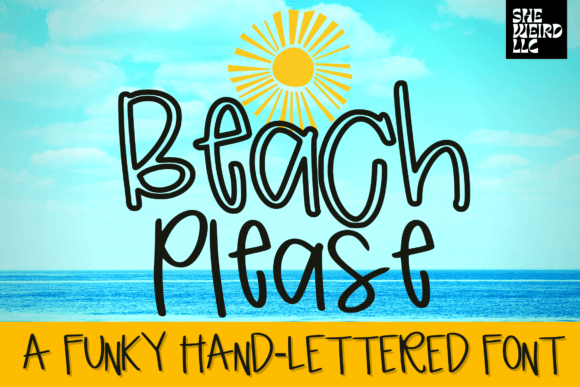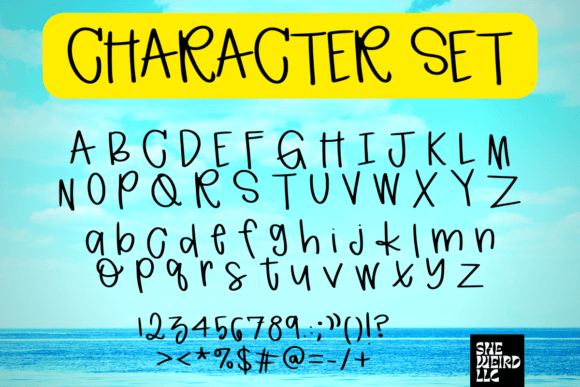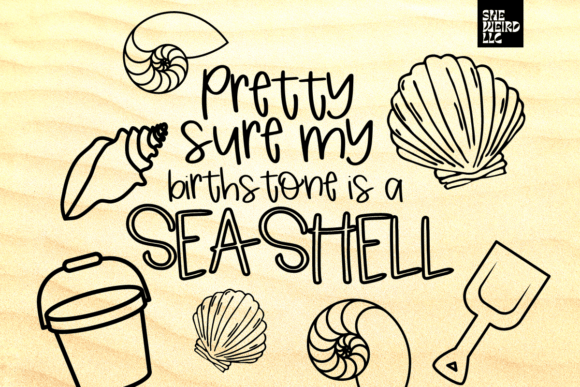
Beach Please Font
About Beach Please Font
“Beach Please” is a delightful and approachable handwritten font that radiates quirkiness and friendliness. This font is a valuable addition to your font library, capable of enhancing a wide range of creative creations with its unique charm and personality.
The standout feature of “Beach Please” is its ability to inject a sense of playfulness and approachability into your designs. The font’s quirky and friendly style makes it an incredible asset for a wide variety of topics and themes. It has the power to uplift and elevate any creation, regardless of its subject matter.
One of the key strengths of “Beach Please” is its versatility. It can adapt seamlessly to different design aesthetics and contexts, ensuring that it remains a versatile choice for a wide array of creative projects.
Whether you’re working on branding, social media graphics, posters, merchandise, or any other creative endeavor, “Beach Please” adds a touch of whimsy and personality that resonates with your audience.
In branding, “Beach Please” can help convey a relatable and approachable image for your business or product. Its quirky style sets your brand apart and creates a memorable impression on customers.
For social media, this font can make your posts and captions more engaging and shareable. Its friendly and informal character helps you connect with your audience on a personal level.
In posters and merchandise design, “Beach Please” adds a playful and eye-catching element that draws attention and makes your designs more appealing.
The font’s quirkiness is particularly well-suited for projects where a sense of fun and individuality is desired. It can add a touch of creativity and uniqueness to your work, making it stand out in a crowded landscape.
In summary, “Beach Please” is a quirky and friendly handwritten font that has the potential to elevate any creation. Its versatility and playful character make it suitable for a wide range of design projects, from branding to social media, posters, merchandise, and more. With “Beach Please,” you have a font that infuses your designs with personality and charm, creating memorable and engaging visuals that leave a lasting impression.